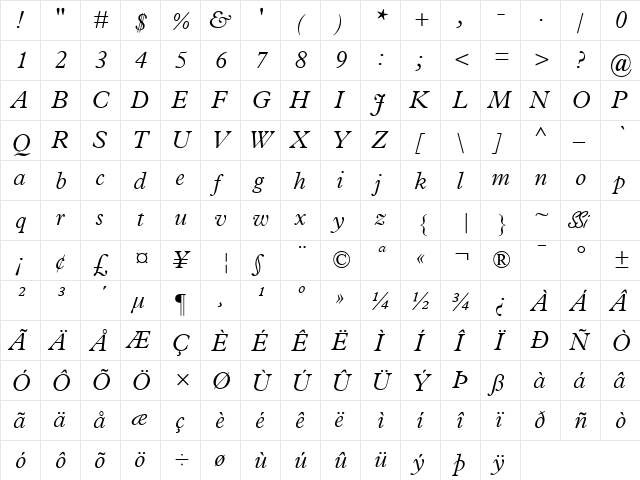
Terminus Light SSi Light Italic
Design Context for Terminus Light SSi Typeface
Terminus Light SSi is a composed and adaptable typeface that performs quietly and consistently across a wide range of design contexts. The slanted form adds forward momentum and visual energy. The delicate stroke weight brings airiness and refinement to layouts.
Pro Tip: Try Terminus Light SSi for annotation and caption copy alongside an upright companion — the contrast in angle creates a dynamic but ordered typographic system.